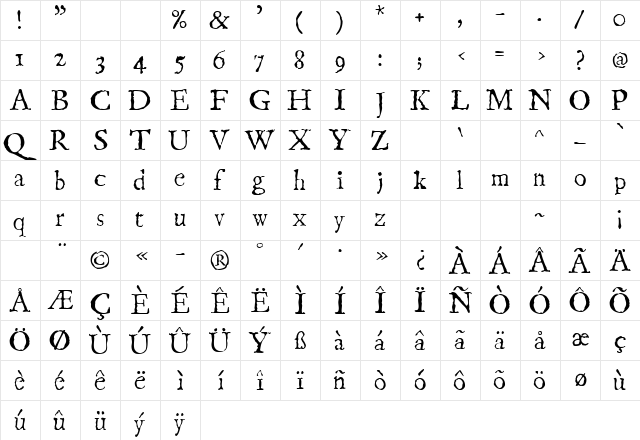
LTCompendio Regular Regular
Design Context for LTCompendio Regular Typeface
LTCompendio Regular is a composed and adaptable typeface that performs quietly and consistently across a wide range of design contexts.